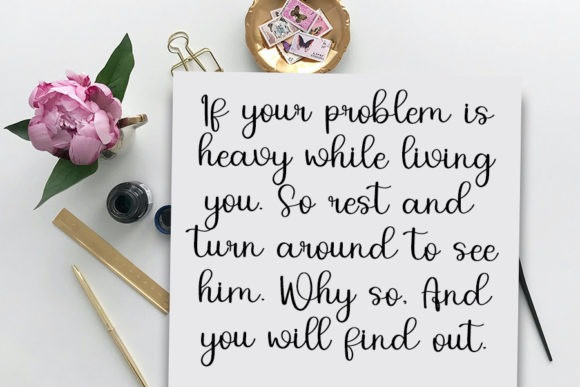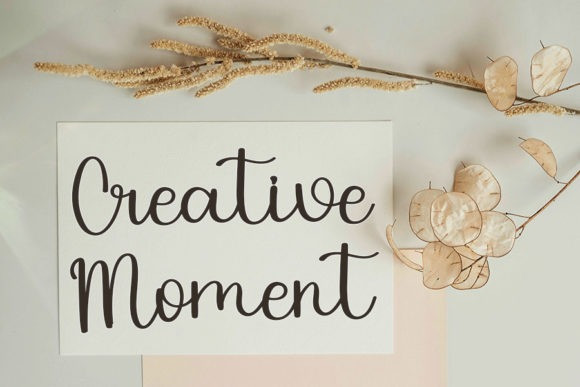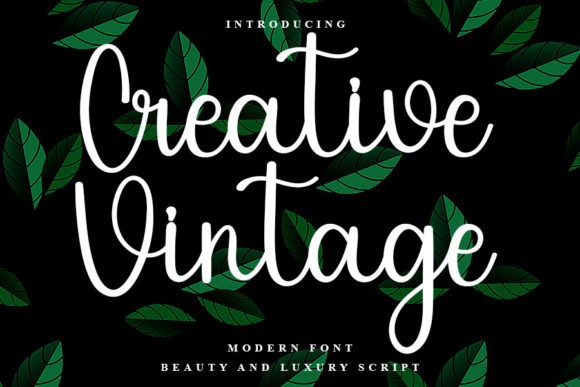
Creative Vintage Font
Creative Vintage Script Font is a lovely script font featuring charming, playful characters that seem to dance along the baseline. Add this font to your most creative ideas, and notice how it makes them stand out!